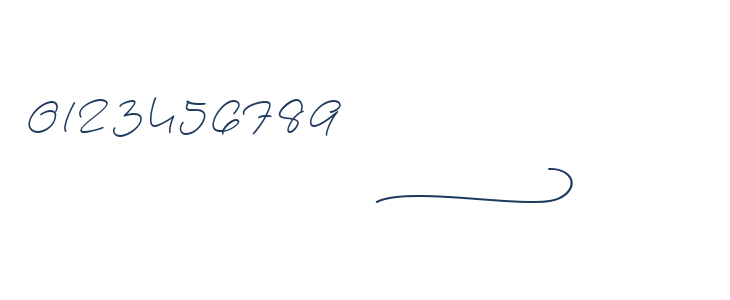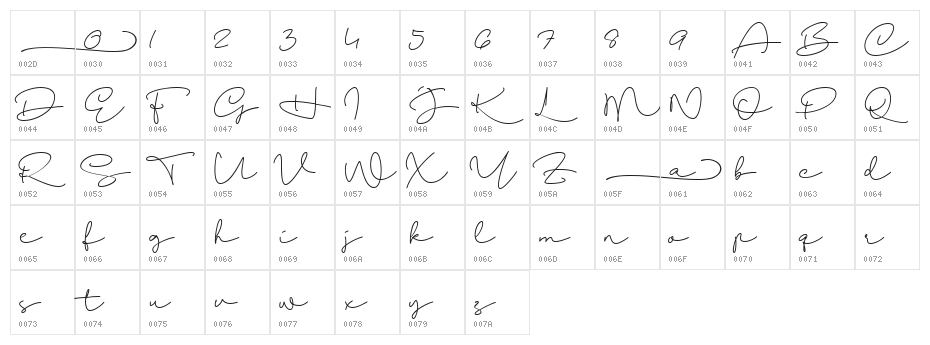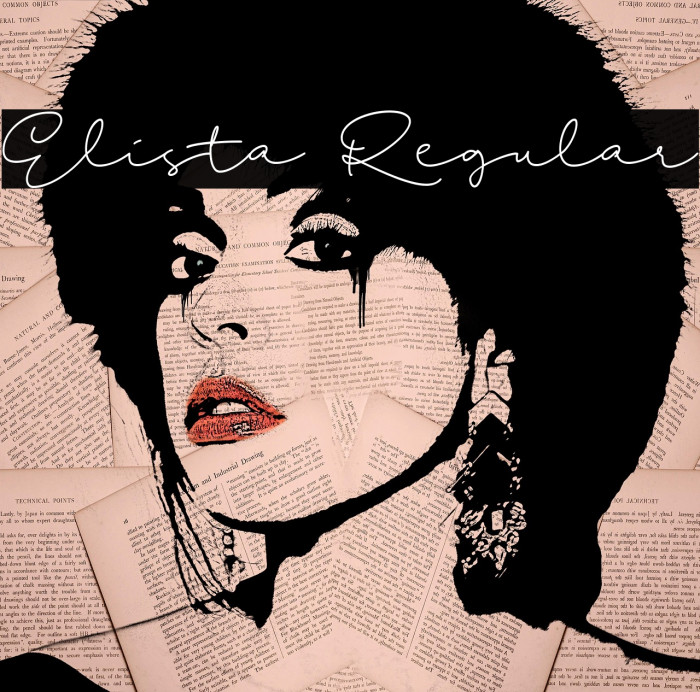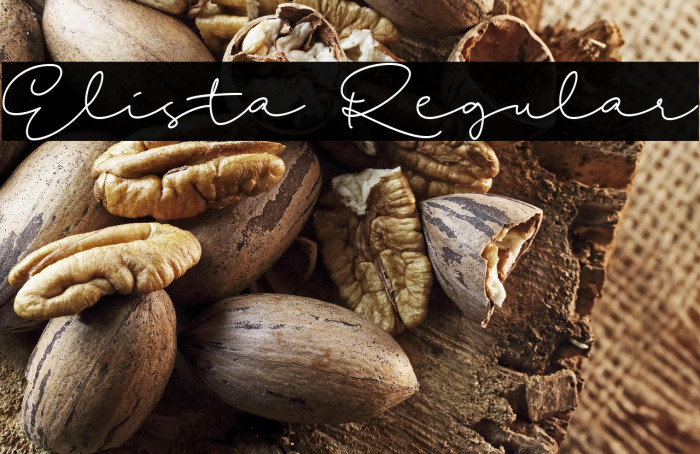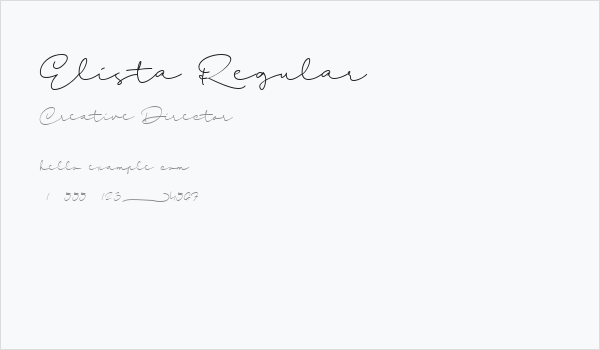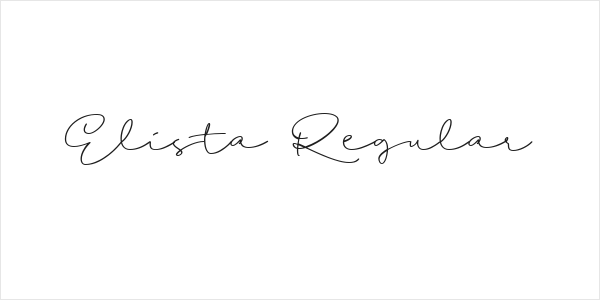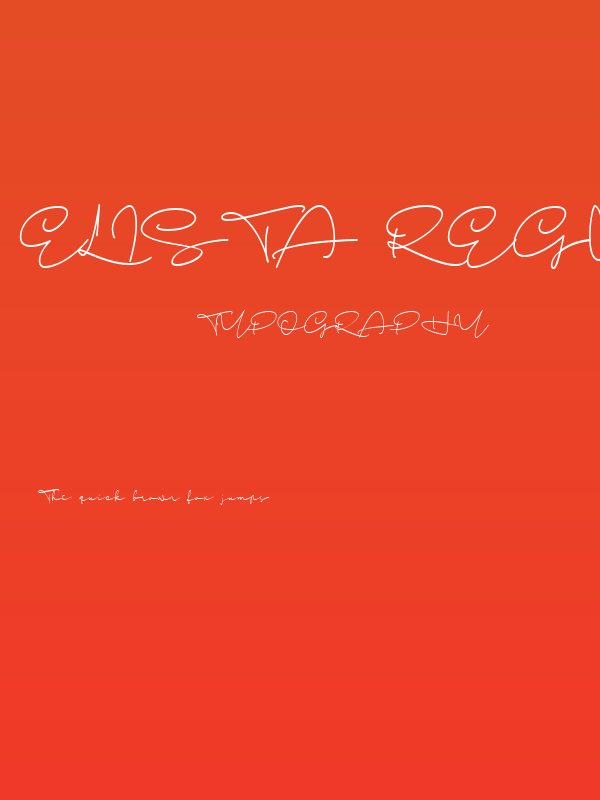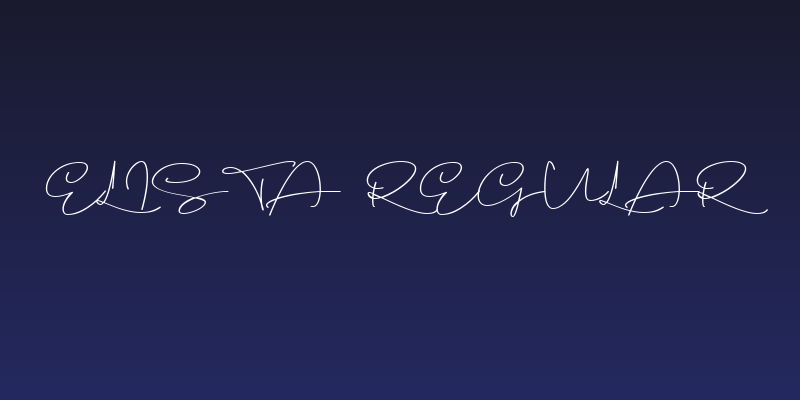
Elista Regular Font
Elista Regular Description
This font exudes a graceful and fluid style, characterized by its elegant, flowing script. The letters are interconnected, creating a seamless and continuous appearance that mimics natural handwriting. The uppercase letters are ornate and slightly larger, while the lowercase letters maintain a consistent and smooth flow. The numerals are clear and distinct, maintaining the same fluidity as the alphabet. This font is perfect for adding a personal touch to any project, offering a sophisticated yet approachable aesthetic.